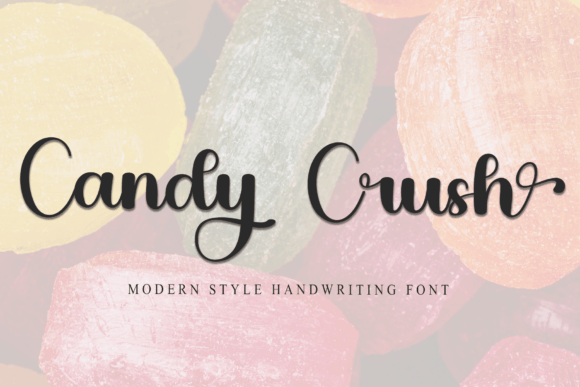
The Sweetest Font in Town: A Deep Dive into Candy Crush Font
I’ll never forget the design project that led me to discover the stunning Candy Crush font. I was working on a luxury branding project for a high-end candy store, and I was struggling to find the perfect font that would capture the essence of their brand. The client wanted something elegant, playful, and sophisticated all at once. After hours of scouring font libraries and marketplaces, I stumbled upon Candy Crush, and it was love at first sight! 💕
An Honest Review: What I Love and What I Don’t
What I Love About Candy Crush Font ✨
- 💫 It’s a beautiful, light handwritten font with a unique feel that adds a touch of luxury to any design project.
- 🎉 The font is PUA encoded, making it easy to access all the amazing glyphs and ligatures.
- 👍 It’s incredibly versatile and can be used for a wide range of design projects, from branding and packaging to invitations and social media graphics.
- 💥 The font has a stunning impact and can instantly elevate the look and feel of your designs.
While Candy Crush font is amazing, there are a few things to keep in mind:
- 🤔 The font may not be suitable for body text or long-form content, as it’s a display font meant to make a statement.
- ⚠️ Some users may find the font a bit too ornate or over-the-top for certain design projects.
The Backstory Behind Candy Crush Font
Candy Crush font was designed by a team of typographers who wanted to create a font that would capture the essence of luxury and sophistication. The font was inspired by the elegance of handwritten scripts and the playfulness of modern typography. The designers spent countless hours perfecting the font, ensuring that it would be both beautiful and functional.
Q: What is PUA encoding, and how does it work?
A: PUA (Private Use Area) encoding is a way of encoding fonts that allows designers to access additional glyphs and ligatures. This means that you can use Candy Crush font to create beautiful, custom text designs with ease.
Q: Is Candy Crush font suitable for body text or long-form content?
A: No, Candy Crush font is a display font meant to make a statement. It’s best used for headings, titles, and short-form content.